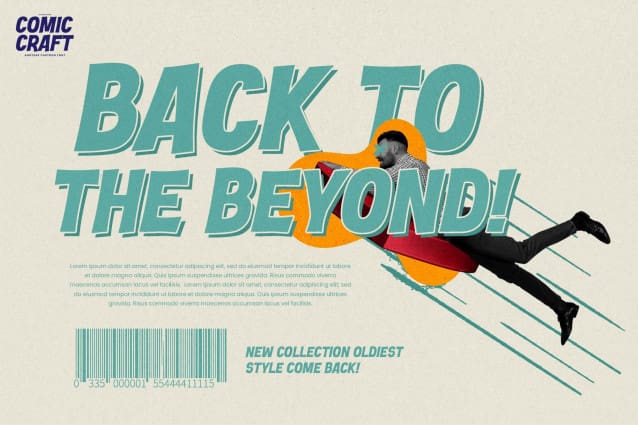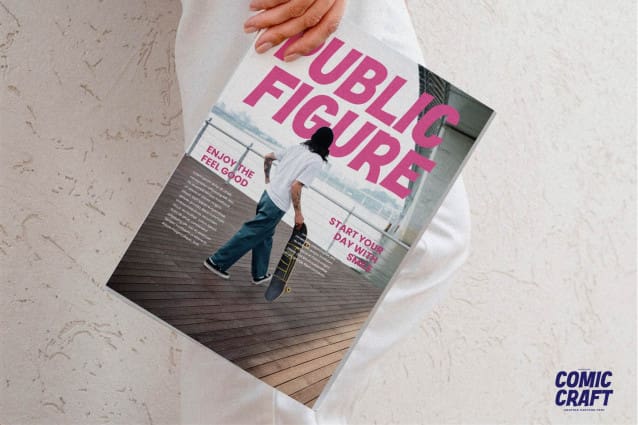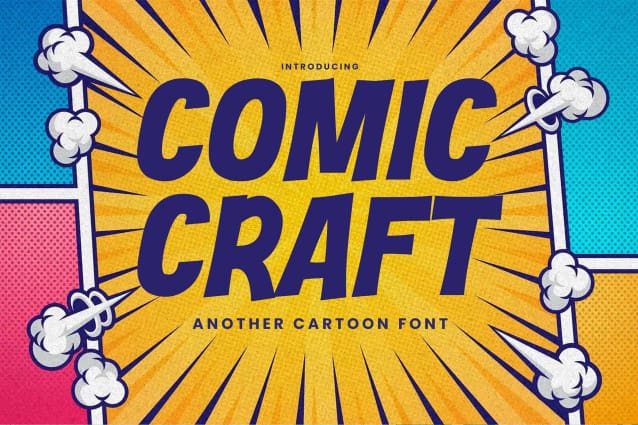
Comic Craft Font
Comic Craft Font – This is a Another Cartoon Font, with simple drawing and cartoon style, this font is perfect for making a strong statement in your designs.
Add the bold and authentic character of this Font to your next project and capture the essence of the minimalist aesthetic.